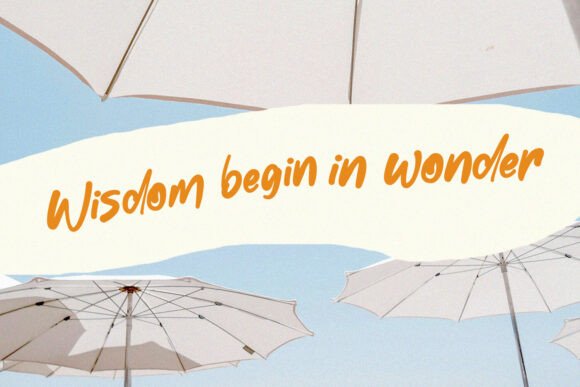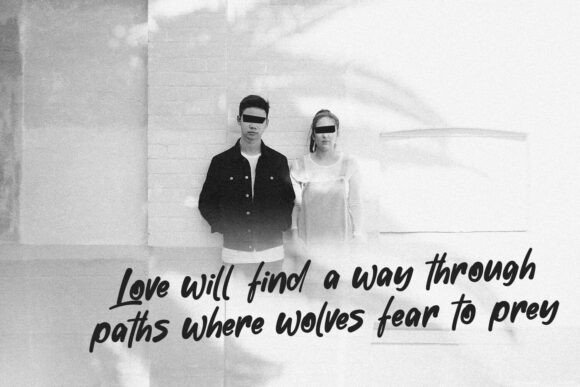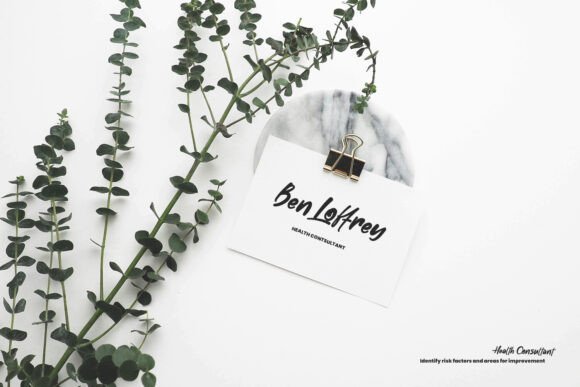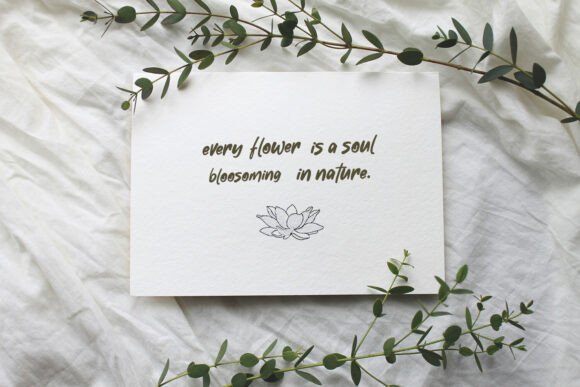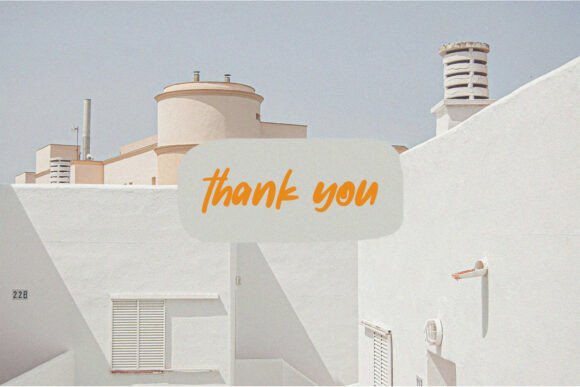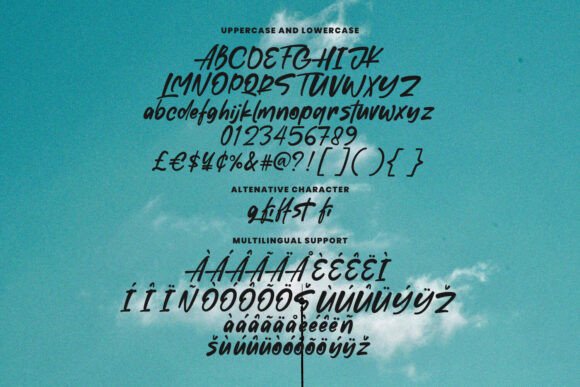
Introducing Festus Magiest Font: The Perfect Blend of Style and Personality
In the world of typography, fonts play a crucial role in conveying the tone and personality of a brand, product, or message. For designers and crafters looking for a typeface that exudes a bold yet friendly vibe, Festus Magiest Font is an excellent choice. This dynamic and casual script font is designed to add a stylish, handcrafted touch to various design projects, from branding and social media graphics to packaging and more.
The Characteristics of Festus Magiest Font
Festus Magiest Font boasts smooth curves and confident brush strokes, giving it a unique and eye-catching appearance. Its clean legibility and playful vibe make it an ideal choice for creatives aiming to make a modern statement. The font’s bold yet friendly personality is perfect for designs that require a touch of sophistication and approachability.
Perfect for Branding and Marketing Materials
When it comes to branding, the right font can make all the difference in establishing a company’s identity and tone. Festus Magiest Font is well-suited for branding projects, as it can add a touch of personality and whimsy to logos, business cards, and letterheads. Its bold and confident strokes also make it perfect for headlines and titles, while its clean legibility ensures that the message is conveyed clearly.
Elevate Your Social Media Graphics with Festus Magiest Font
Social media graphics require a font that can grab attention and convey a message quickly. Festus Magiest Font is an excellent choice for social media graphics, as its bold and playful vibe can help increase engagement and drive interactions. Whether you’re creating graphics for Instagram, Facebook, or Twitter, this font is sure to make your content stand out.
Adding a Handcrafted Touch to Packaging Design
Packaging design is an essential aspect of product branding, and the right font can make a significant impact on the overall aesthetic. Festus Magiest Font is perfect for packaging design, as its handcrafted feel and smooth curves can add a touch of sophistication and elegance to product labels, boxes, and bags.
Versatility and Legibility
One of the standout features of Festus Magiest Font is its versatility. Its clean legibility paired with a playful vibe makes it an excellent choice for a wide range of design projects. Whether you’re creating a logo, social media graphic, or packaging design, this font is sure to deliver a modern and stylish look.
Tips for Using Festus Magiest Font
To get the most out of Festus Magiest Font, here are a few tips to keep in mind:
- Use it as a headline font to grab attention and add a touch of personality to your design.
- Pair it with a clean and simple font to create a striking contrast.
- Don’t be afraid to get creative and try out different styles and variations.
Festus Magiest Font is a dynamic and casual script font that offers a unique blend of style and personality. Its smooth curves, confident brush strokes, and clean legibility make it an excellent choice for designers and crafters looking to add a stylish, handcrafted touch to their designs. Whether you’re working on branding, social media graphics, packaging, or any other design project, Festus Magiest Font is sure to deliver a modern and stylish look that will help you stand out from the crowd.